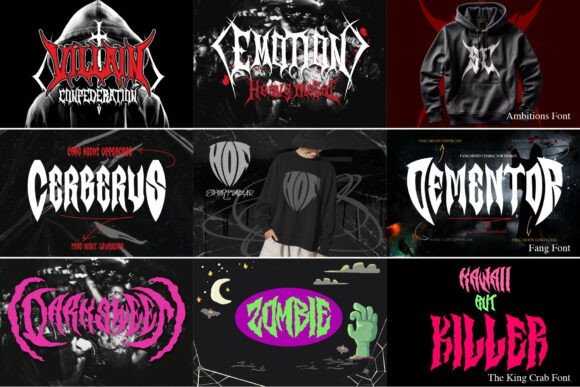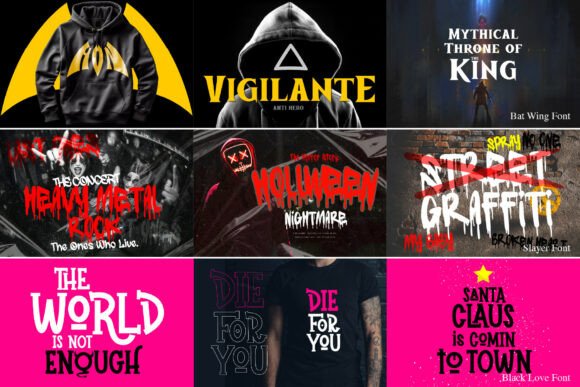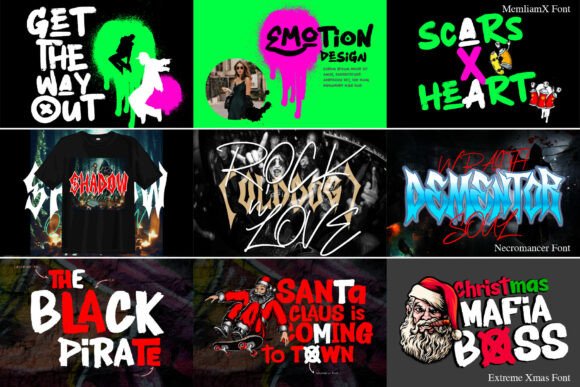
Introduction to Pumkinzwitch Font
As you sit at your desk, surrounded by scraps of paper and half-empty coffee cups, the Halloween season’s sweet temptation calls. You’ve got a design project in mind, something spooky and fun, but the right font is missing. That’s where the Pumkinzwitch Font bundle comes in – a treasure trove of high-quality, free downloads that will breathe life into your creative project.
With its vibrant and diverse range of fonts, this bundle is perfect for designers seeking a design resource that’s both unique and versatile. From cute and playful to dark and edgy, the Pumkinzwitch Font collection has something for every style and preference. And with a transparent background, you can easily integrate these fonts into your designs without any hassle.
Key Features of Pumkinzwitch Font
- High-quality design resource ideal for creative projects, offering a unique and stylish aesthetic.
- Unique characteristics include a playful, whimsical feel and a distinctive letterform style that sets it apart from other fonts.
Honest Review: Pumkinzwitch Font
I recently had the chance to work with the Pumkinzwitch Font, and I must say it’s a great addition to any designer’s toolkit. One of the things that stood out to me was the high quality of the font – it’s clear that the creators put a lot of thought into designing a unique and stylish typeface.
One of the things that I loved about the Pumkinzwitch Font is its versatility. It can be used for a wide range of creative projects, from logos and branding to posters and advertisements. The font is also available for a free download, making it a fantastic resource for designers on a budget.
- High quality design
- Perfect for creative projects that require a unique touch
While the Pumkinzwitch Font is a great resource, there are a few limitations to be aware of:
- May not be suitable for body text due to its ornate design
- Limited character set
- Not ideal for use in small font sizes
Overall, I’m really impressed with the Pumkinzwitch Font. It’s a great addition to any designer’s toolkit and is perfect for those looking to add a unique touch to their creative projects. Just be aware of its limitations and use it in the right context.
The Pumkinzwitch Font is a unique, high-quality design resource perfect for any creative project. This font features a transparent background, making it easy to use in various design applications.
The Pumkinzwitch Font is perfect for creative projects such as posters, flyers, and social media graphics. Use the font to add a touch of personality to your designs and make them stand out from the crowd.